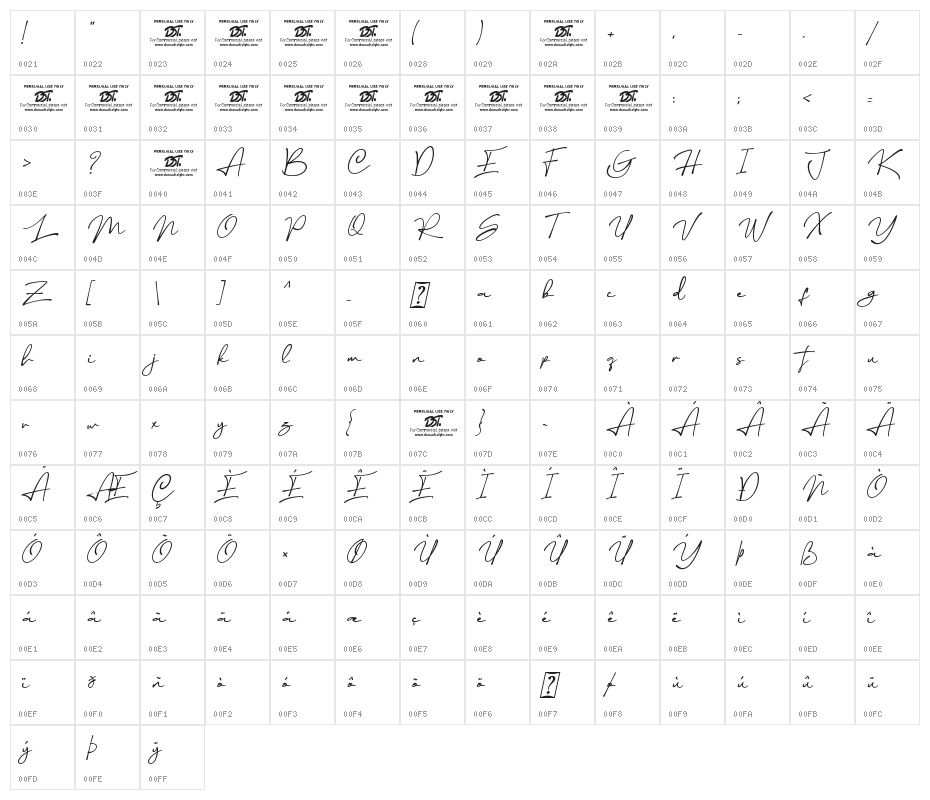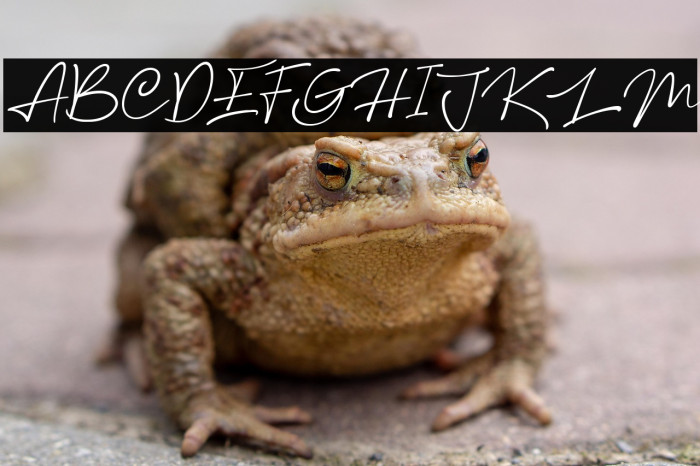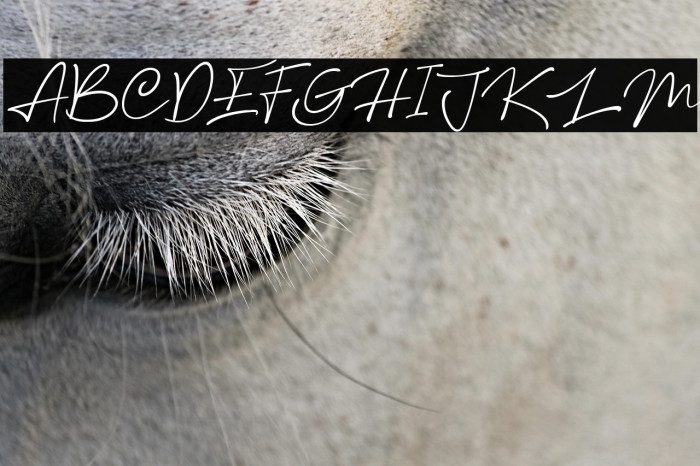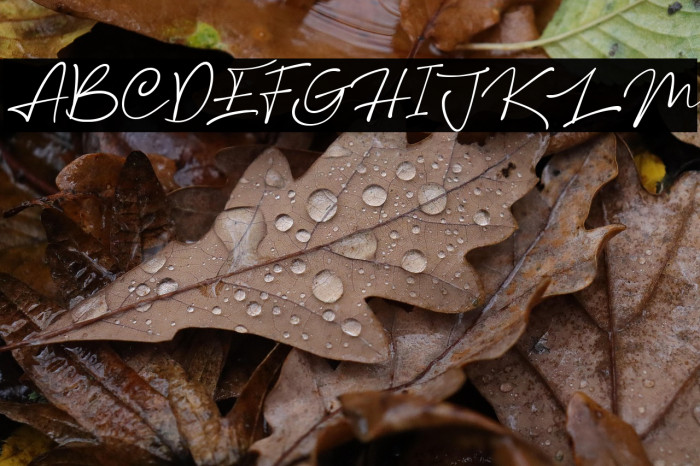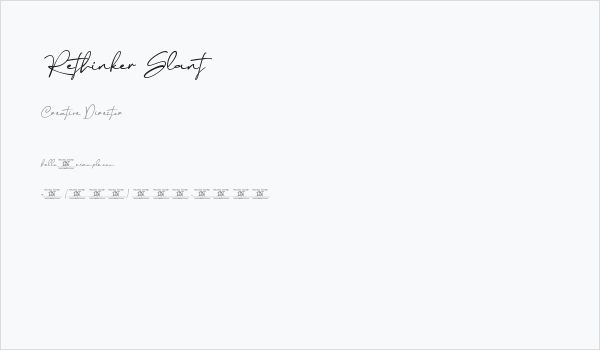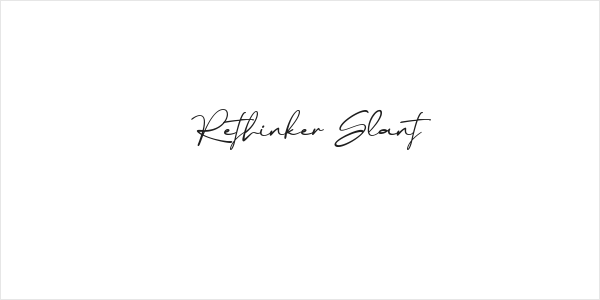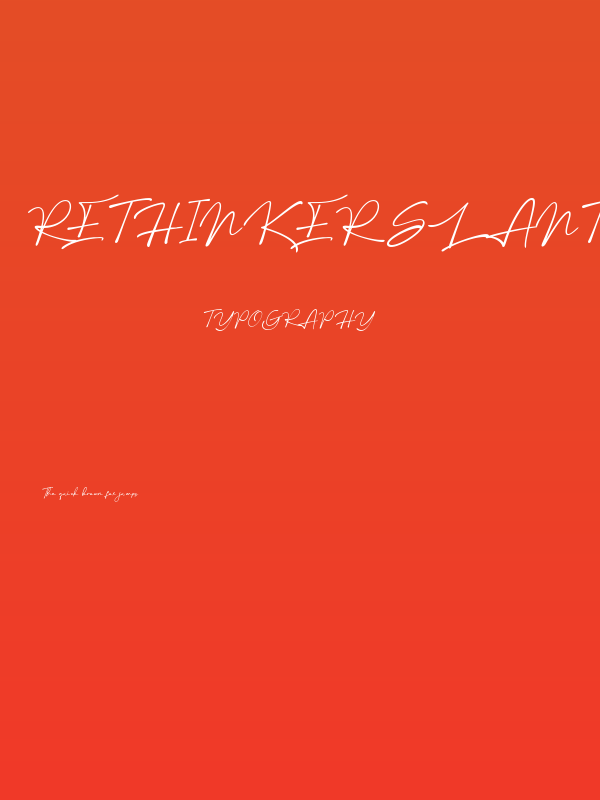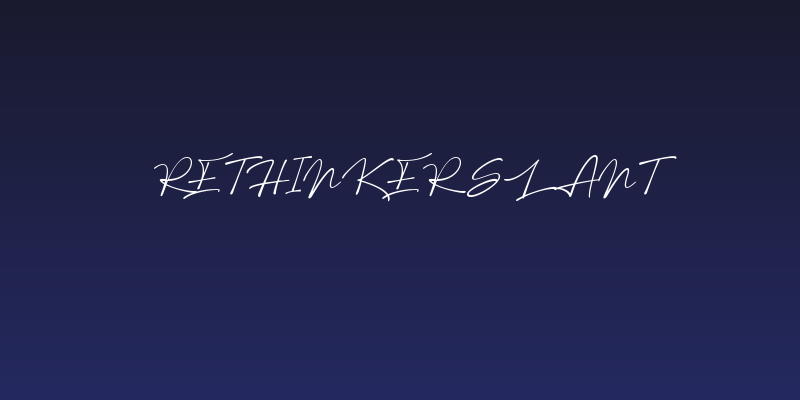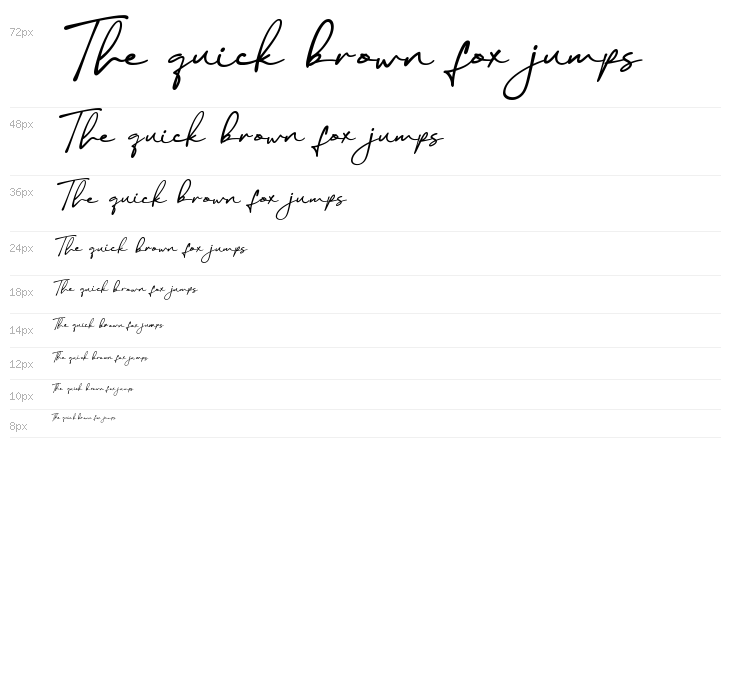
Rethinker Slant Font
Rethinker Slant Description
A slanted, handwritten script font with a modern and elegant style, featuring smooth, flowing lines and a casual yet sophisticated appearance.
| Use Case | Logos, Invitations, Greeting cards |
| Proposed Projects | Invitations, greeting cards, branding, and social media graphics. |